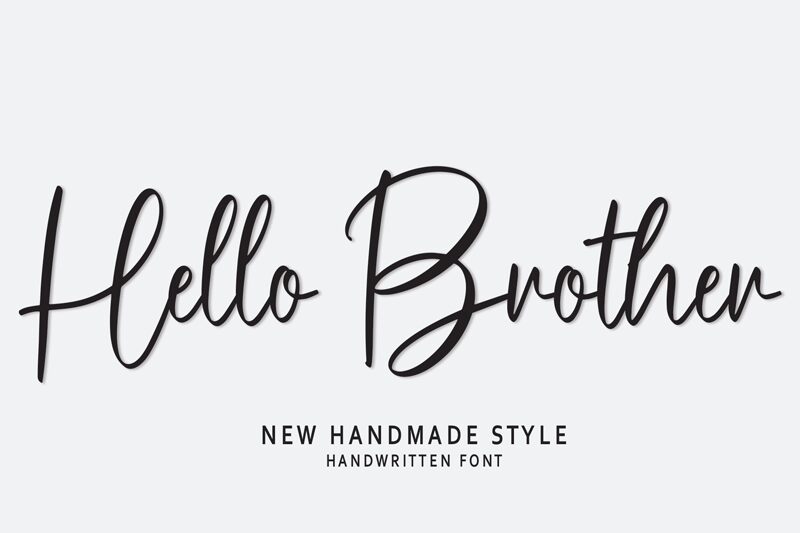
Hello Brother
Hello Brother font is a light handwritten typeface by Scratchones. Cursive and elegant, it features flowing lines that allow you to create vivid typographic compositions. The informal mood of this script font gives off a laid-back feel to your projects.
Many useful uses pack Hello brother free font; plan on using it for note writing in book covers or dust jackets design, posters of all sizes, branding identities consisting of book covers and business cards along stationery sets.